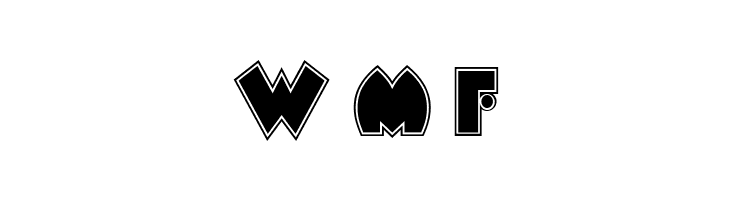
A bold, geometric font with inline detailing for a striking visual impact.
( Fonts by Omega Font Labs )
Recent favorites include Arbuckle Inline NF, Gothic Hijinx Hollow, Mordred, Today and GE Holiday Sampler. They balance clarity and personality, working well for tech brands, editorial layouts, and social visuals.